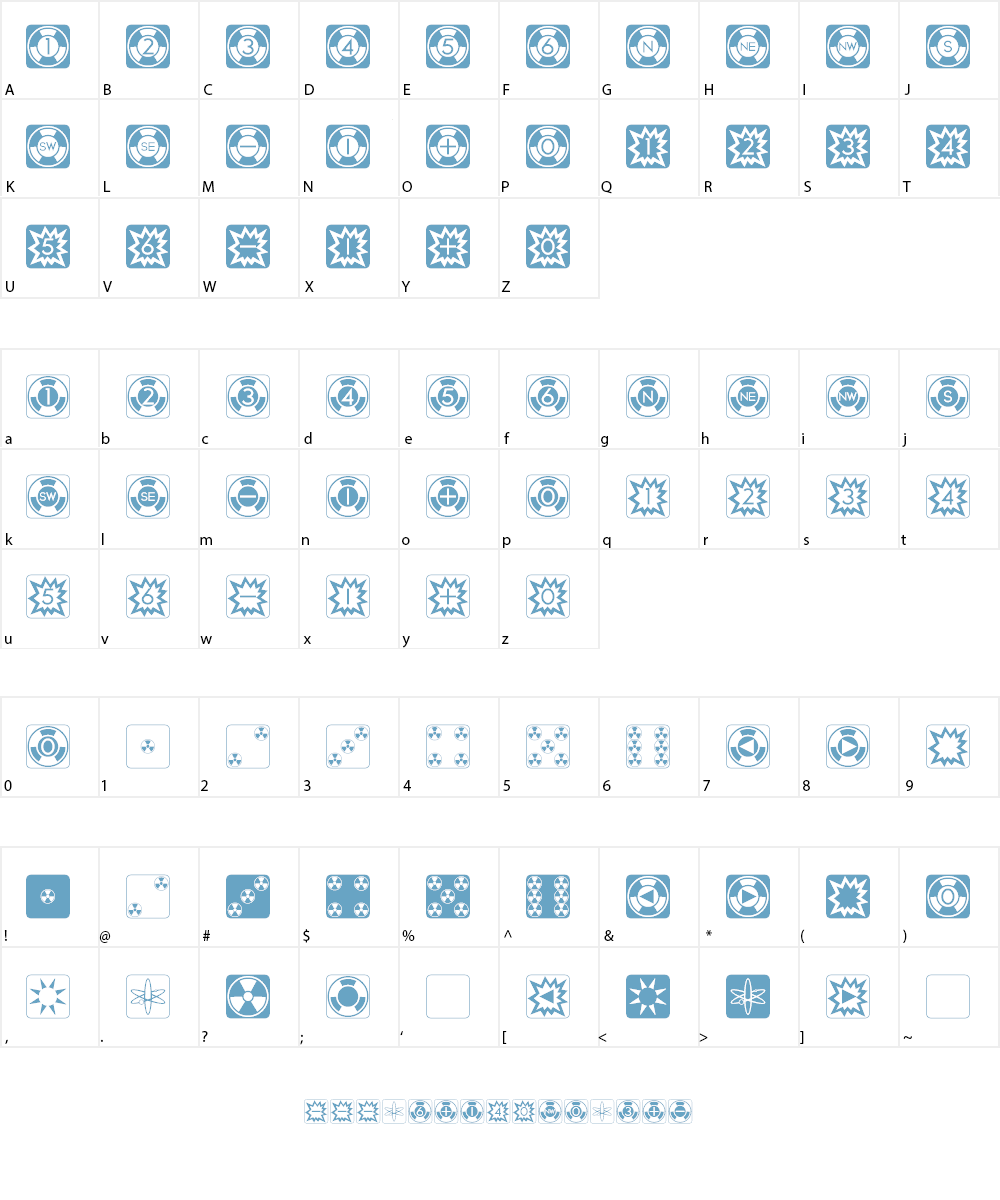
Atomic Dice is a collection of glyphs designed to resemble six-sided die. This set includes dice designed to resemble explosions, nuclear fallout symbols, and other 'post-apocalyptic' symbols. Each glyph has 'white' and 'black' versions.